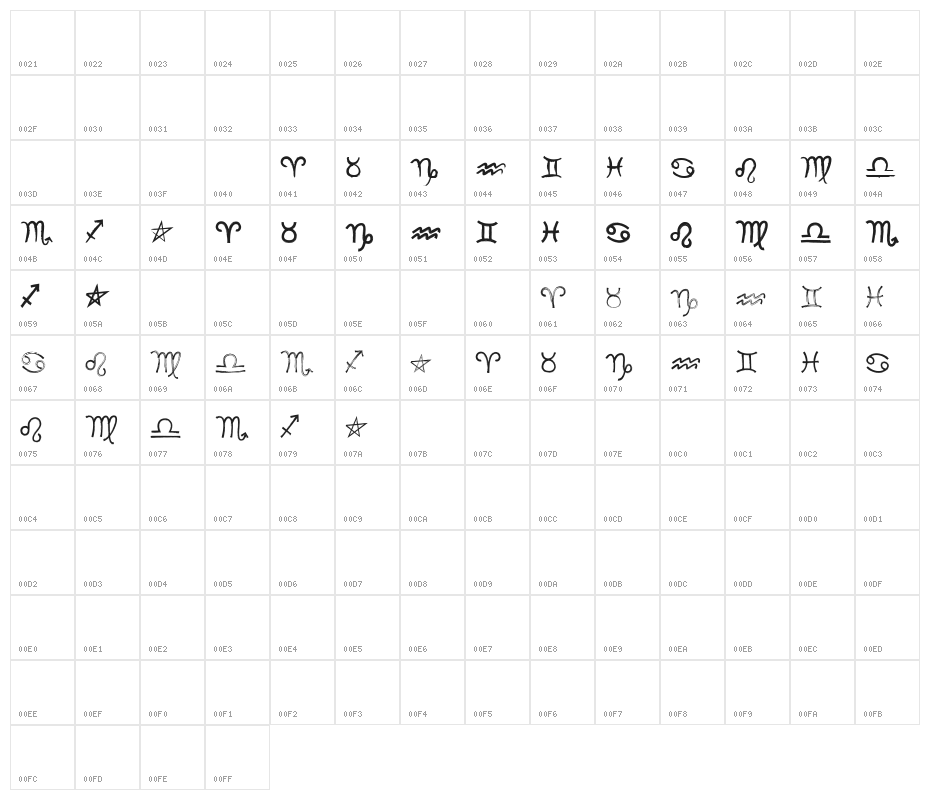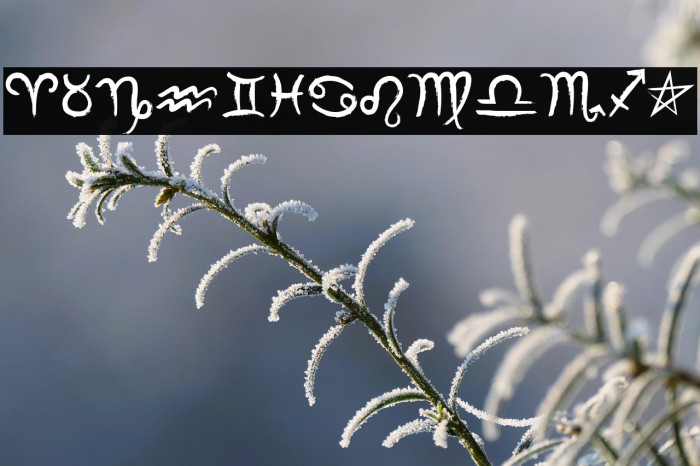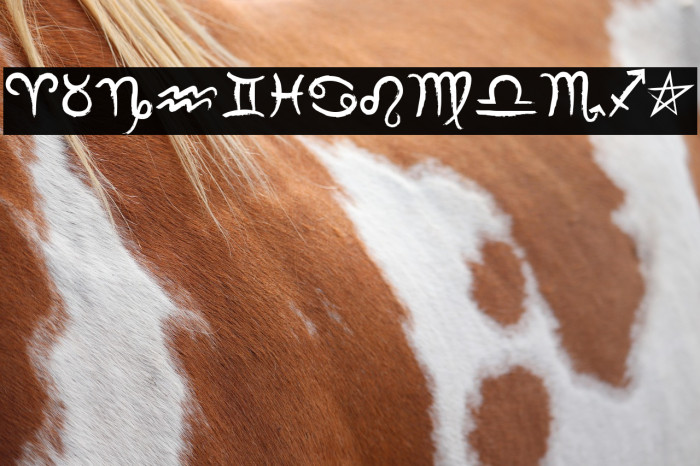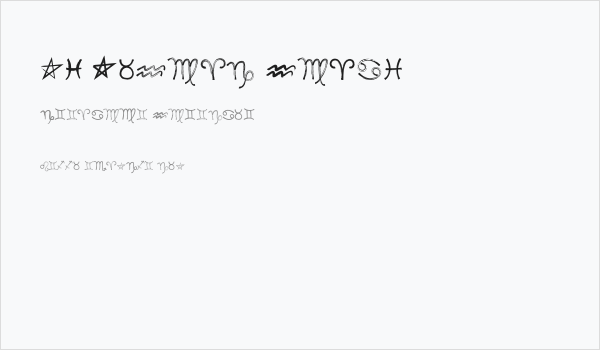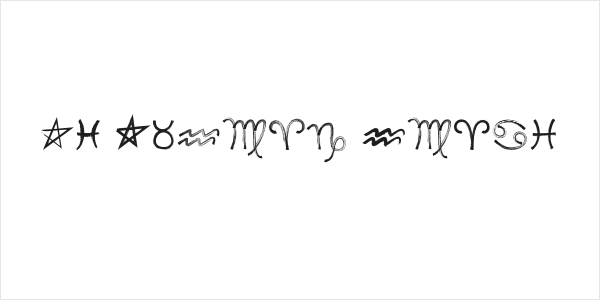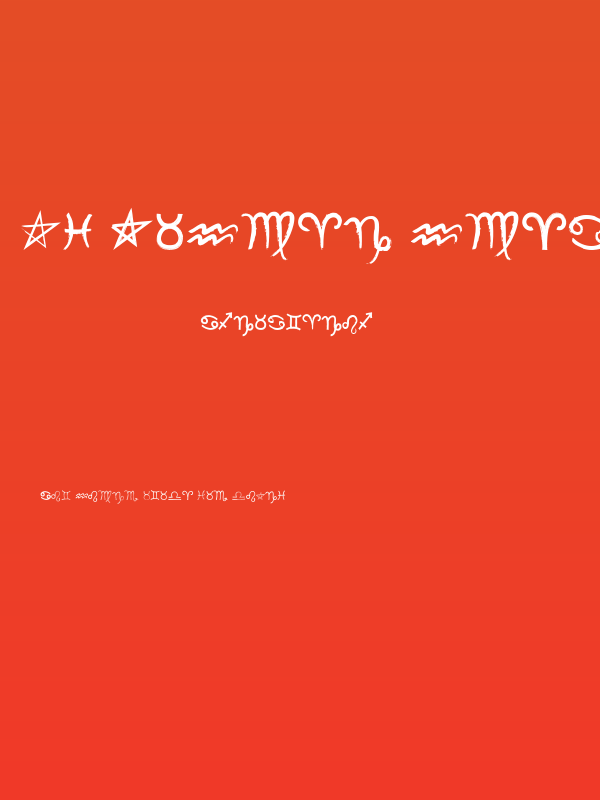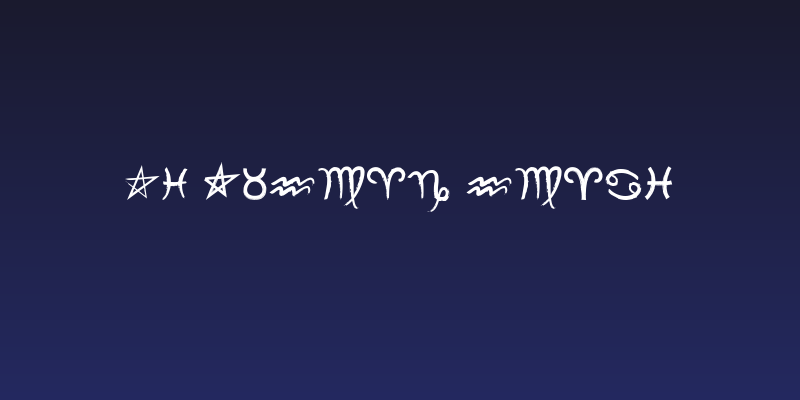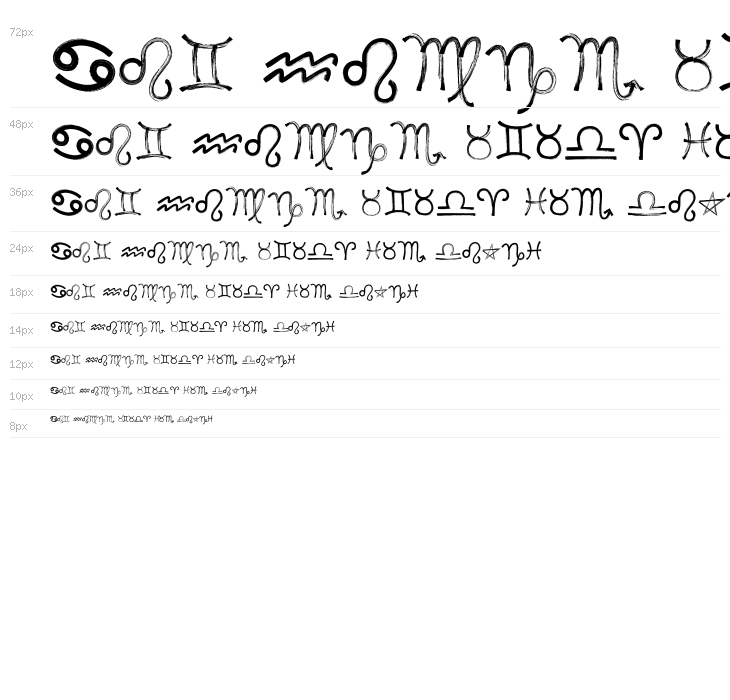
MF Zodiac Dings Font
MF Zodiac Dings Description
This font features a collection of zodiac symbols, each crafted with a unique and artistic flair. The symbols are bold and distinct, with varying line thicknesses that add a dynamic and expressive quality. The characters are designed to capture the essence of each zodiac sign, making them ideal for projects that require a mystical or astrological theme. The style is decorative and ornate, with a hand-drawn appearance that adds a personal touch. The symbols are well-spaced, ensuring clarity and readability, while the overall design maintains a cohesive and harmonious look.
| Use Case | Logos, Decorative art, Astrology-themed projects |
| Proposed Projects | Ideal for astrology-themed designs, horoscopes, mystical branding, and decorative art projects. |